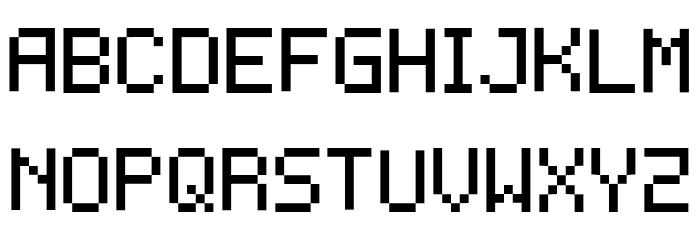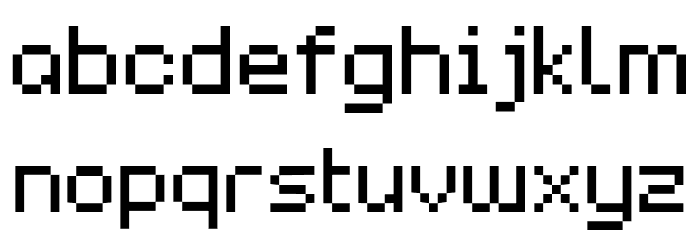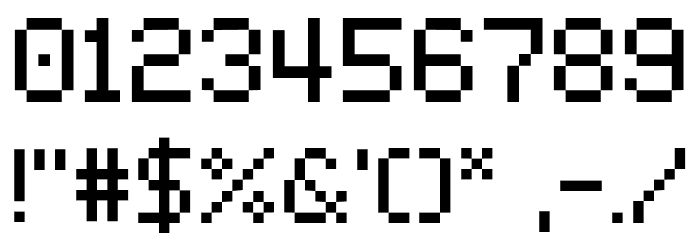
Mintbit Font
This font features a pixelated, blocky design reminiscent of early digital displays and retro video games. Each character is constructed with a grid-like precision, giving it a distinctly digital and geometric appearance. The uppercase and lowercase letters maintain a consistent height, contributing to a uniform look across the text. The numerals and special characters follow the same pixelated style, ensuring visual coherence. This font's simplicity and clarity make it ideal for digital-themed projects or designs that require a nostalgic touch.
A pixelated, blocky font with a retro digital style.
- Proposed Projects: Ideal for retro video game designs, digital art projects, or any creative work that seeks to evoke nostalgia for early computing aesthetics.
- Overall Style: Retro, Digital
- Use Case: Logos, Headlines, Digital Art